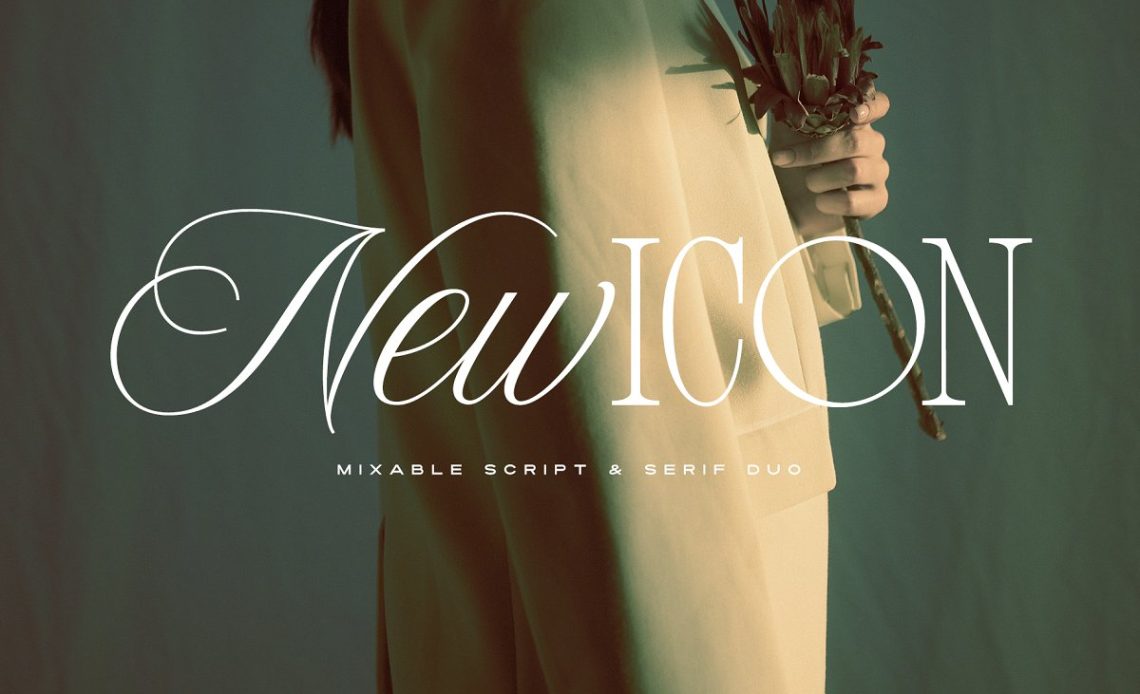
Welcome to the world of New Icon Font Duo, the ultimate font set for creating stunning food logos and designs that will leave a lasting impression. This luxury script and timeless serif duo, created by Sam Parrett, is the perfect combination for any design project. Not only do they work beautifully as standalone fonts, but they pair effortlessly when placed side by side.
If you're feeling creative, you can even mix them together within the same word for a more eye-catching layout, giving you a versatile set of fonts that can be used and loved across a range of design projects. The New Icon Serif is a classic, all-caps serif font with nostalgic notes. It contains alternate large-width O, G, Q, and C characters in the uppercase set, making it perfect for creating bold and impactful logos. The New Icon Serif Condensed is a thinner version of the New Icon Serif, providing a sleek and modern look to any design.
The New Icon Script is a luxury, cursive script font containing upper and lowercase characters inspired by traditional calligraphy. It can be used on its own or paired effortlessly with the serif font, creating elegant and sophisticated designs. It contains alternate lowercase y and g with elongated tails, accessible by turning on ‘Stylistic Alternates’ or via a Glyphs panel.
Whether you're designing a logo for a restaurant, bakery, or any food-related business, the New Icon Font Duo is the perfect choice. With its captivating and emotional appeal, you'll be able to create stunning designs that will capture your audience's attention and leave a lasting impression. So, what are you waiting for? Download the New Icon Font Duo now and elevate your design game to the next level!